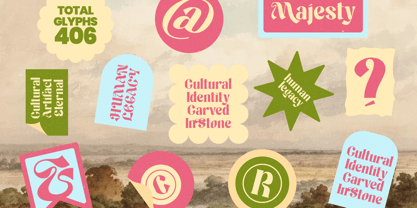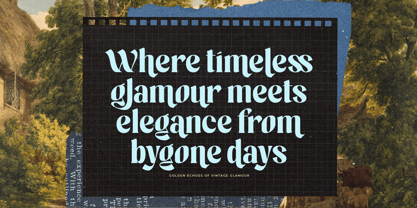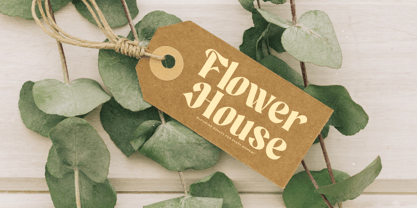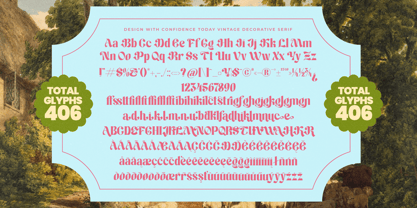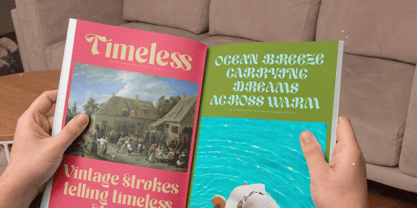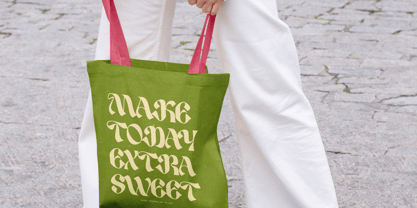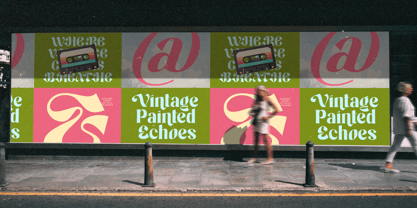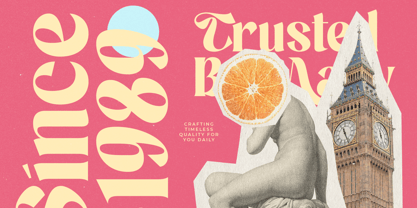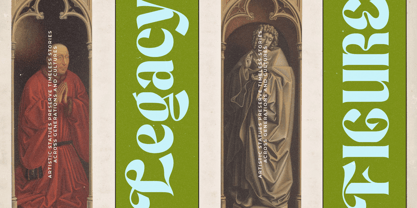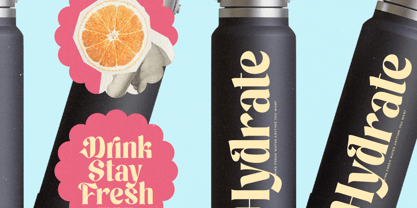
Maker Today
von Timelesstype Studio
Die Schriftfamilie Maker Today wurde von Heru Utama Putra entworfen und von Timelesstype Studio veröffentlicht. Maker Today enthält 2 Stile und Familienpaketoptionen. Mehr über diese Familie
Maker Today - Modern Retro Serif Display Font , from Timelesstype , Suitable for any projects such as: logos, branding projects, homeware designs, product packaging, mugs, quotes, posters, shopping bags, t-shirts, book covers, name card, invitation cards, greeting cards, label, photography, watermark, special events, and all your other luxury and beautiful projects that need a Luxury Serif taste.